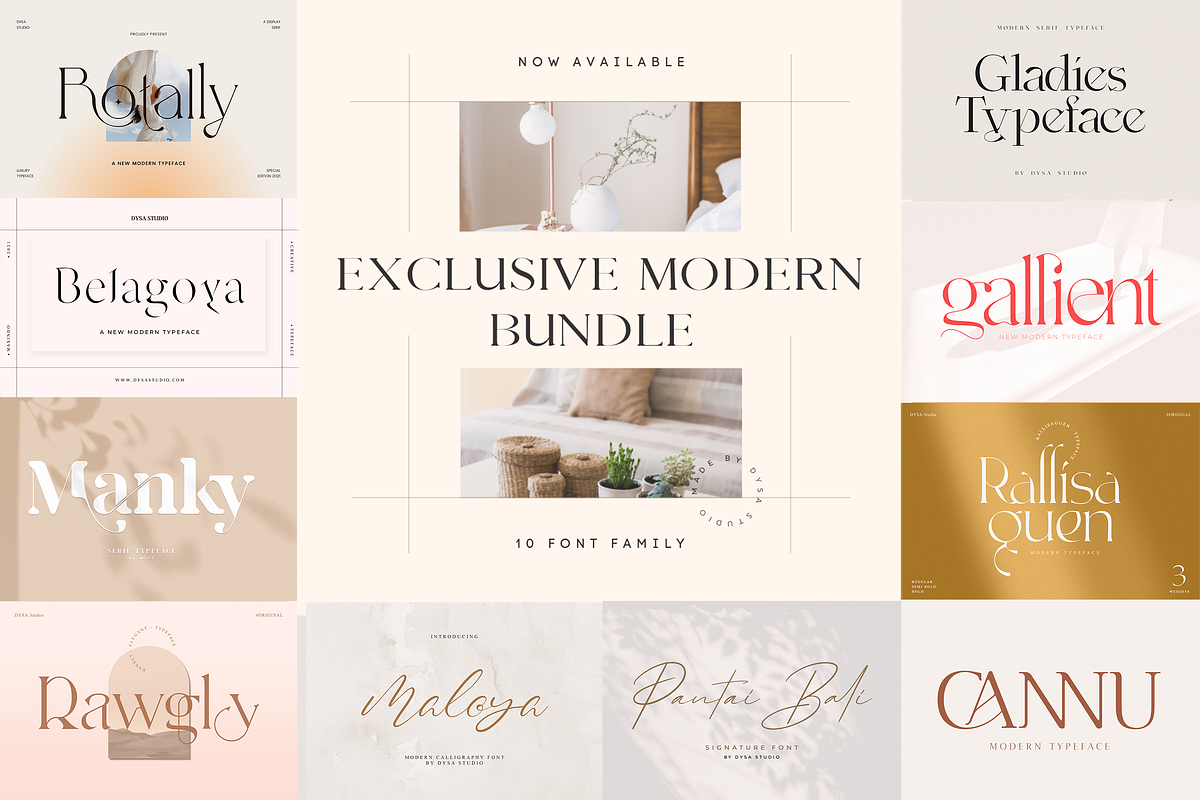
Exclusive Modern Font Bundle Free Download
Exclusive Modern Font Bundle Free Download is a curated collection of high-quality, modern typefaces designed to give you versatility and style for a wide range of design projects. This bundle includes a mix of sans serifs, and display fonts, all crafted with a contemporary aesthetic that’s perfect for branding, editorial design, web interfaces, social media graphics, packaging, and more.
Each font in the bundle has been carefully selected to offer both elegance and readability, allowing you to create professional and polished designs. Whether you’re working on corporate branding, personal projects, or creative ventures, this bundle has fonts that will elevate your work to the next level.